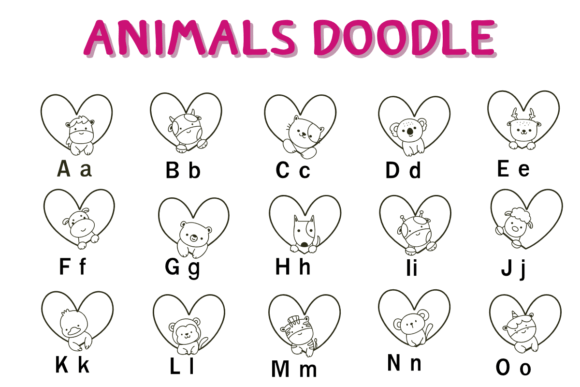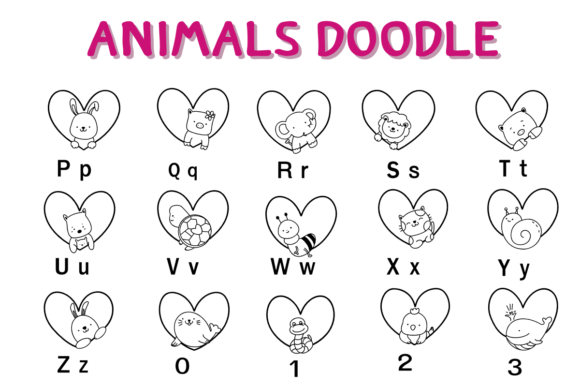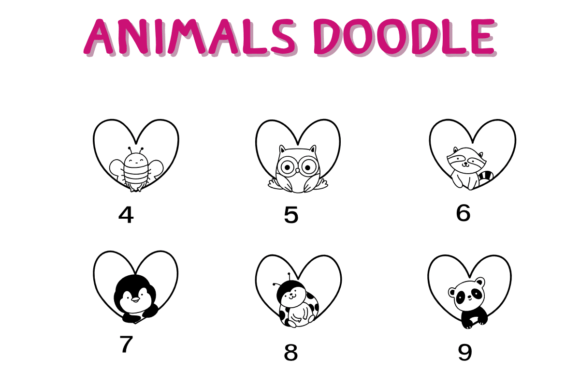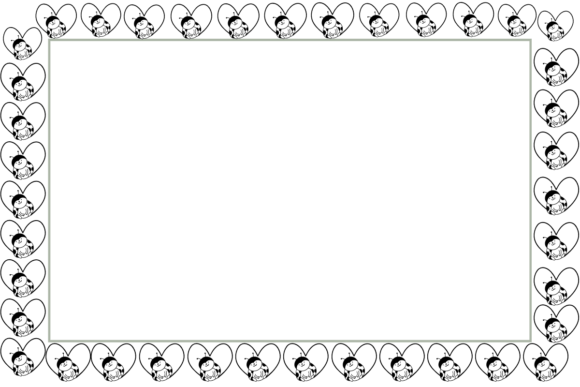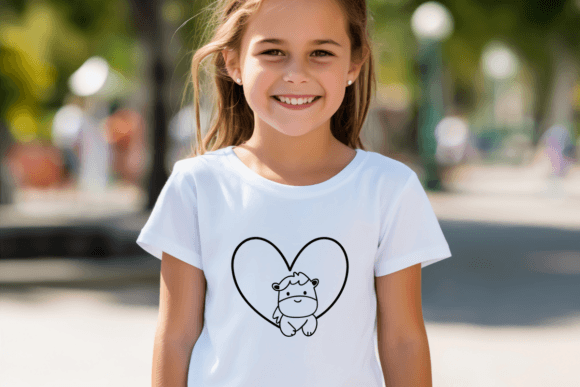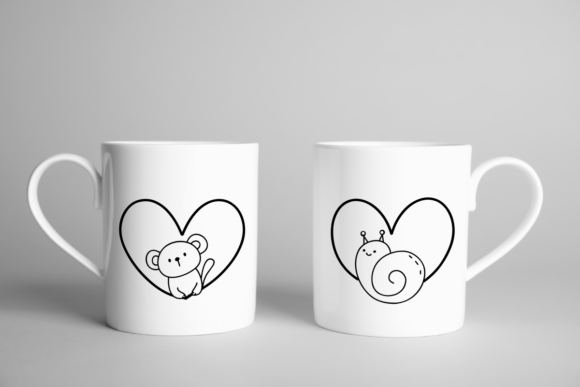
Unleash Your Inner Artist with Animals Doodle Font
Have you ever stared at a blank canvas, feeling stuck and unsure of where to start? The blank page stares back, taunting you with its emptiness. But what if you had the perfect tool to spark your creativity? Introducing the Animals Doodle Font, a playful and whimsical dingbats font that brings a touch of magic to your creative projects.
This delightful font is designed to add a personal touch to your wedding invitations, DIY crafts, decorations, logos, and so much more. With its sketch-style theme, Animals Doodle Font is the perfect companion for designers who want to add a dash of personality to their work. Whether you’re a seasoned pro or a creative newbie, this font is sure to inspire you to think outside the box and bring your imagination to life.
Animals Doodle Font Key Features
- Unique Whimsical Design: The Animals Doodle Font features a playful, hand-drawn design with intricate doodles of various animals, making it perfect for adding a touch of whimsy to your designs.
Animals Doodle Font Review
I recently had the chance to try out the Animals Doodle Font, and I have to say it’s a mixed bag. On one hand, there are some things that really work well: ✨ The font is adorable and playful, perfect for kids’ projects or designs that need a lighthearted touch. ✨ The doodle elements are well-designed and add a fun, whimsical feel to any text. ✨ The font is also very versatile, with a wide range of doodle styles and colors to choose from.
However, there are some limitations that prevent me from giving it a glowing review: ⚠️ The font can be a bit too busy and overwhelming at times, which can make it difficult to read. ⚠️ Some of the doodle elements can feel a bit repetitive, which can make the font feel less interesting than it could be. ⚠️ The font is also not suitable for formal or professional designs, which may limit its use in certain projects.
Overall, I think the Animals Doodle Font is a fun and playful option that can add a lot of personality to a design. However, it’s not without its limitations, and users should be aware of those before using it.
- Target audience: kids’ projects, lighthearted designs
- Style: playful, whimsical
- Suitable for: informal, casual designs
- Not suitable for: formal, professional designs
Tips for using the Animals Doodle Font in Canva: Use the font in conjunction with illustrations or graphics to create a playful and whimsical design. Experiment with different text sizes and colors to add visual interest.
Tips for using the Animals Doodle Font in Adobe Photoshop or Illustrator: Use the font in conjunction with vectors or graphics to create a professional-looking design. Experiment with different text sizes and colors to add visual interest.
Tips for using the Animals Doodle Font in PowerPoint or Word: Use the font in conjunction with images or graphics to create a fun and engaging presentation or document.
The Animals Doodle Font is ideal for:
- Children’s educational materials